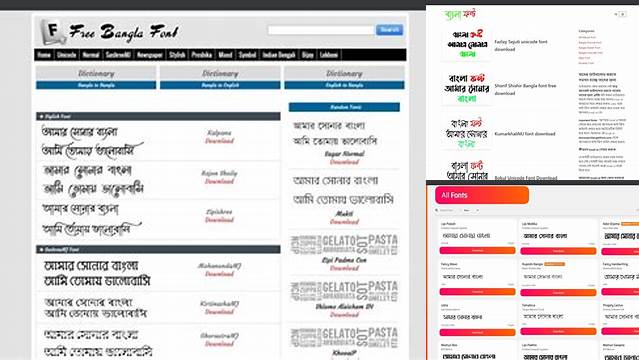
Get Avro Bangla Stylish Fonts: Free Download Guide
Avro Keyboard and the Need for Stylish Fonts
Alright, first things first: why are stylish Avro Bangla fonts so important? Well, if you're a Bangla speaker or someone who frequently types in Bangla, you know that the way your text looks matters. It's not just about conveying information; it's about expressing yourself with flair! The Avro Keyboard is super popular for typing in Bangla because it makes it easy to transliterate English letters into Bangla. But the default fonts can sometimes be a bit… plain, right? That's where stylish fonts come in. They add personality, make your text more readable, and can even enhance the overall aesthetic of your documents, social media posts, or website. Imagine your Bangla text popping with unique designs and elegant curves! That's the power of a great font. It's like giving your words a makeover, ensuring that your message not only gets across but does so with a touch of panache. Finding the right font is about finding the right voice for your digital communication. It makes the text look amazing and also enhances your overall design.
The Importance of Font Aesthetics
Let's talk more about why aesthetics matter. Think about it: when you read something, the font plays a huge role in how you perceive it. A well-chosen font can make a text feel friendly, professional, or even artistic. When it comes to Avro Bangla, the choice of font can reflect your personality, your style, or even the tone of your message. If you're writing a blog post, a creative font can add a touch of whimsy. If you're preparing a formal document, a more classic font might be the way to go. The font you choose is an extension of your own voice and style. Choosing the right font also adds readability. The fonts must be properly designed so that the readers can read them easily. With so many styles available, the possibilities are endless. From elegant serifs to modern sans-serifs, you can find something that complements your taste. It's all about finding a font that speaks to you. The aesthetic is important to the design, but the right font is also important for the user experience.